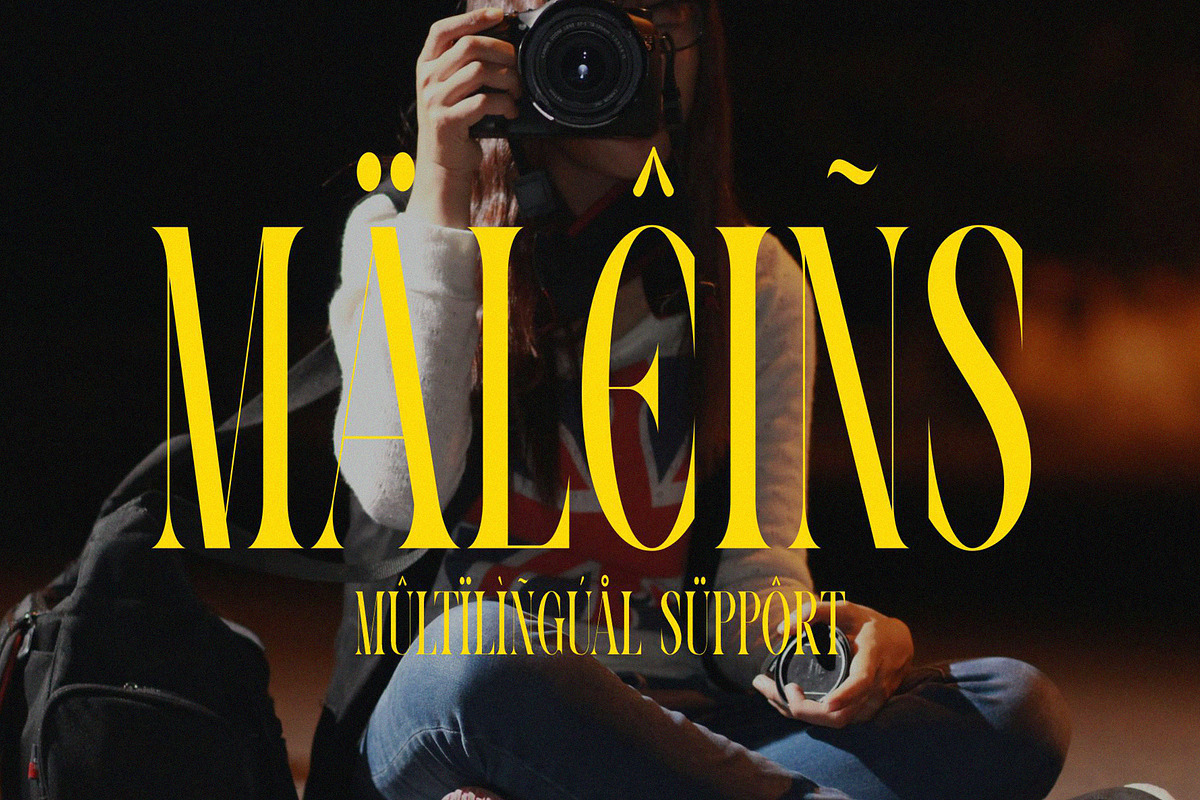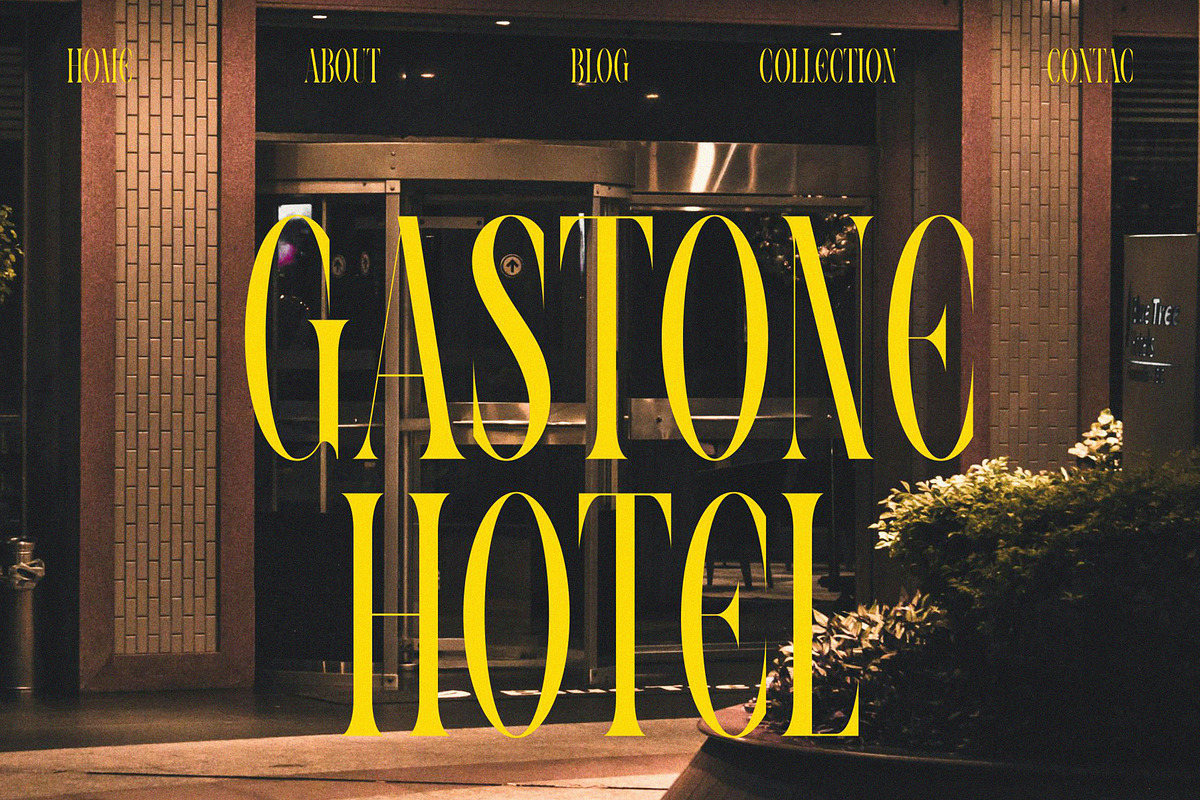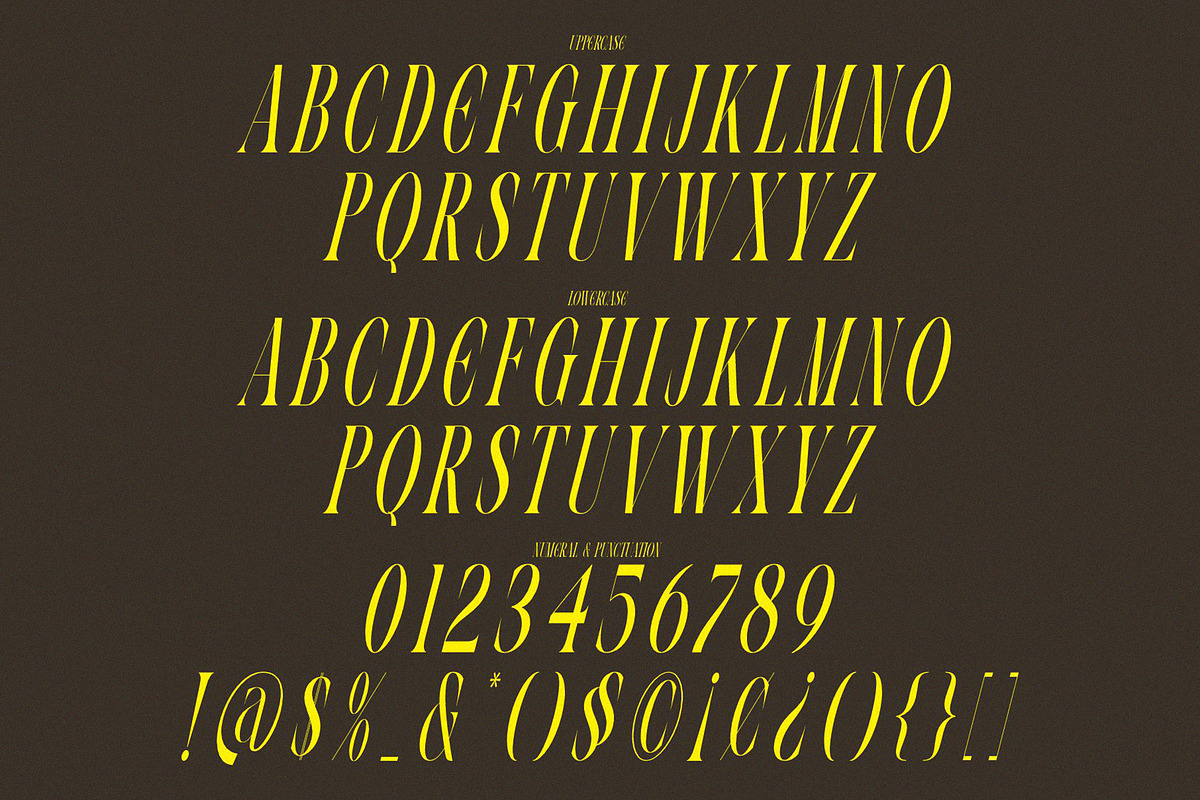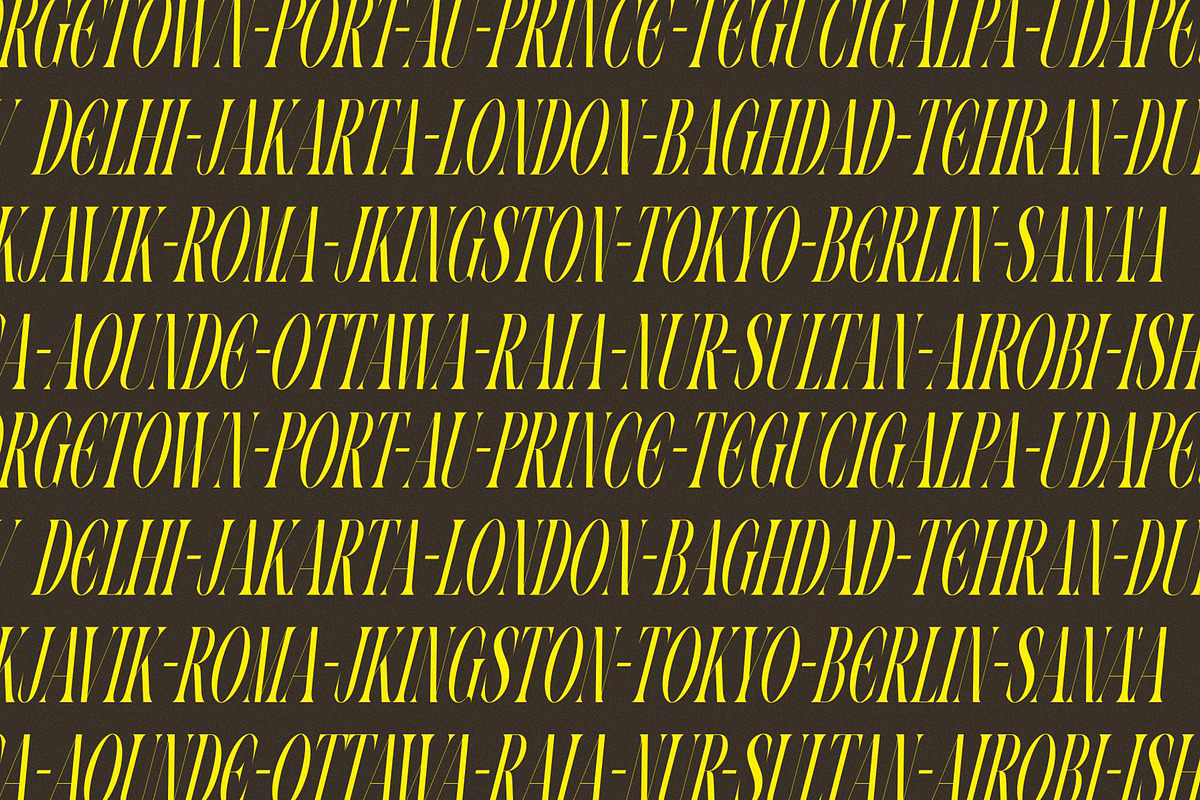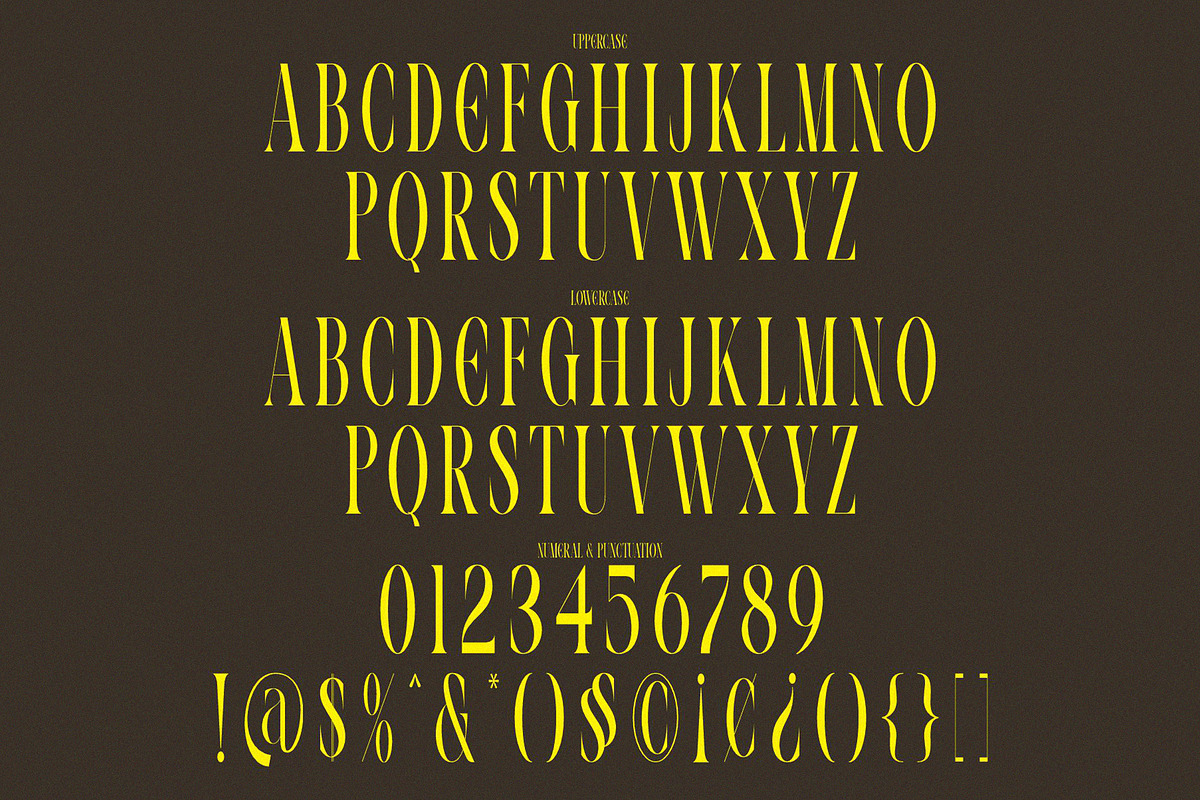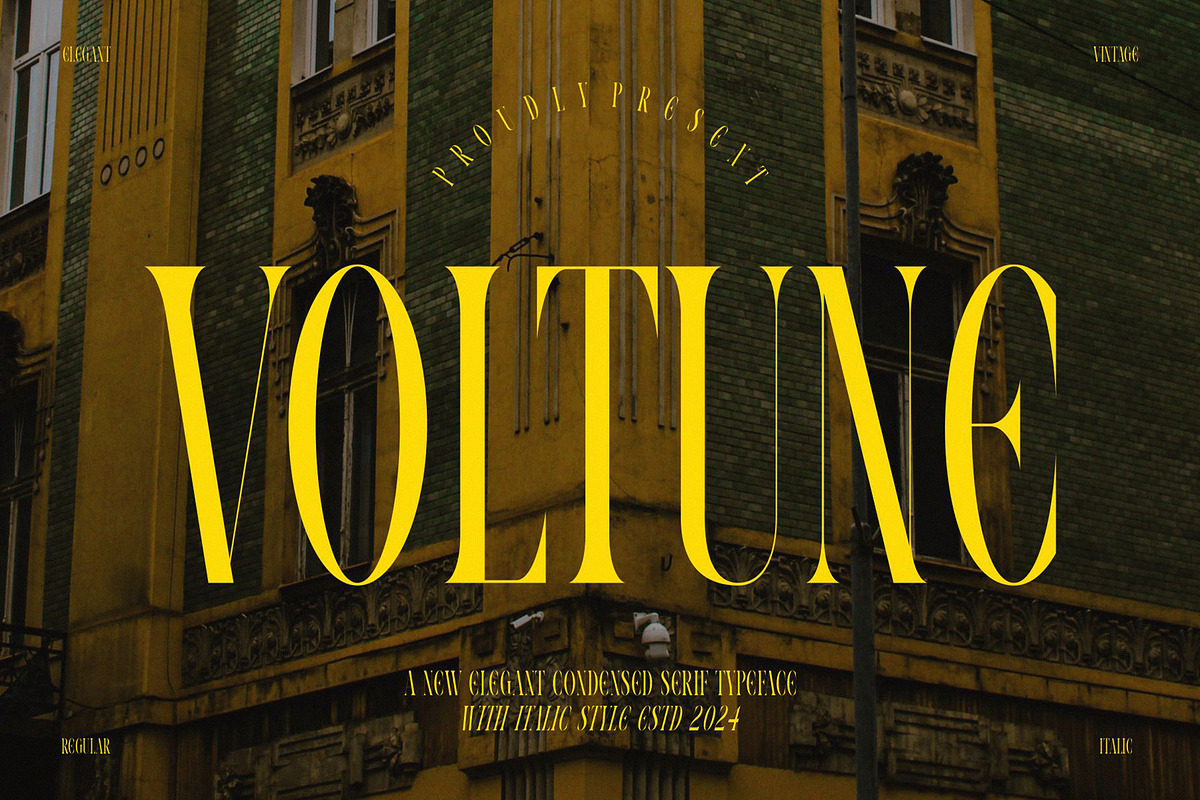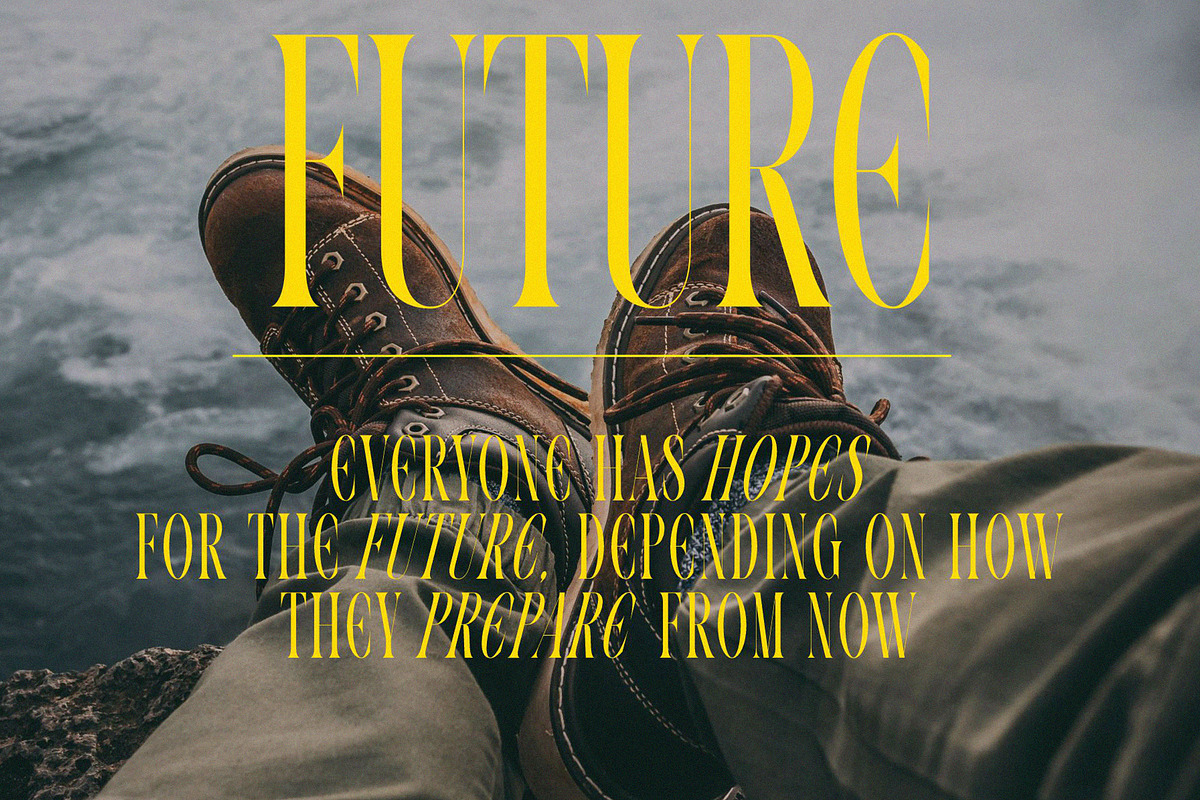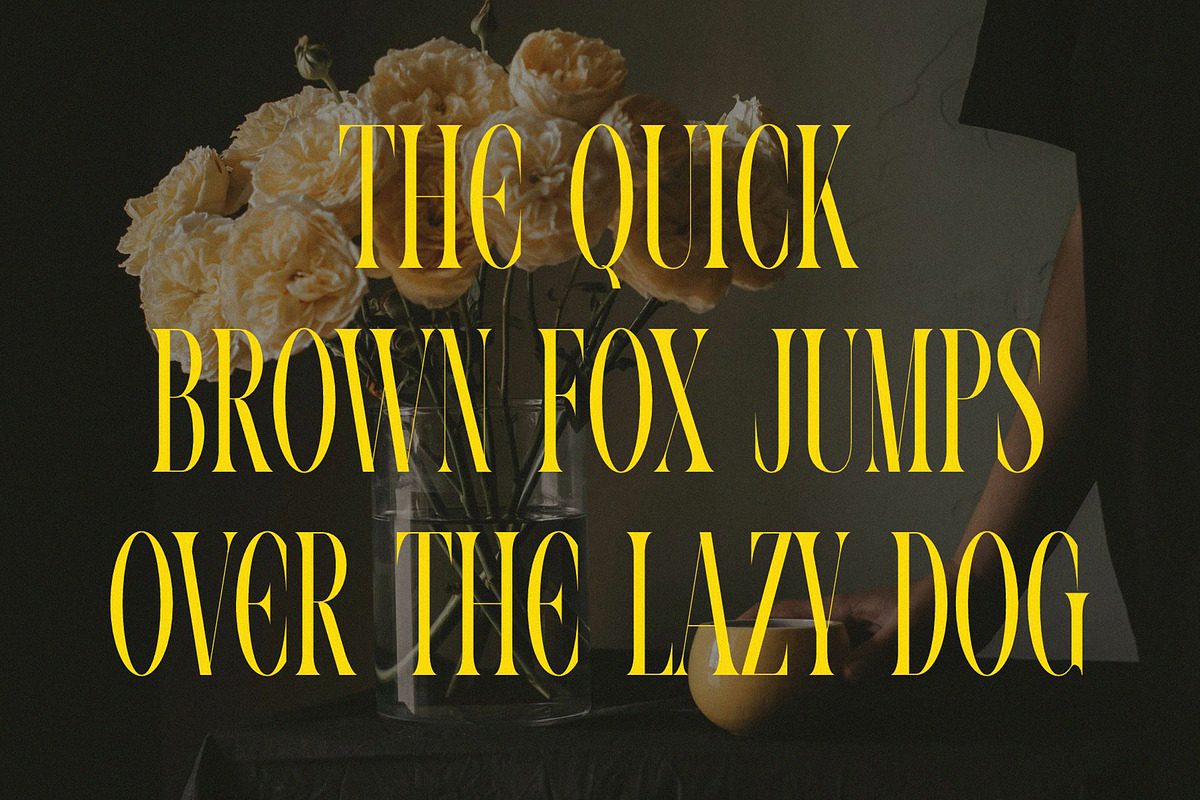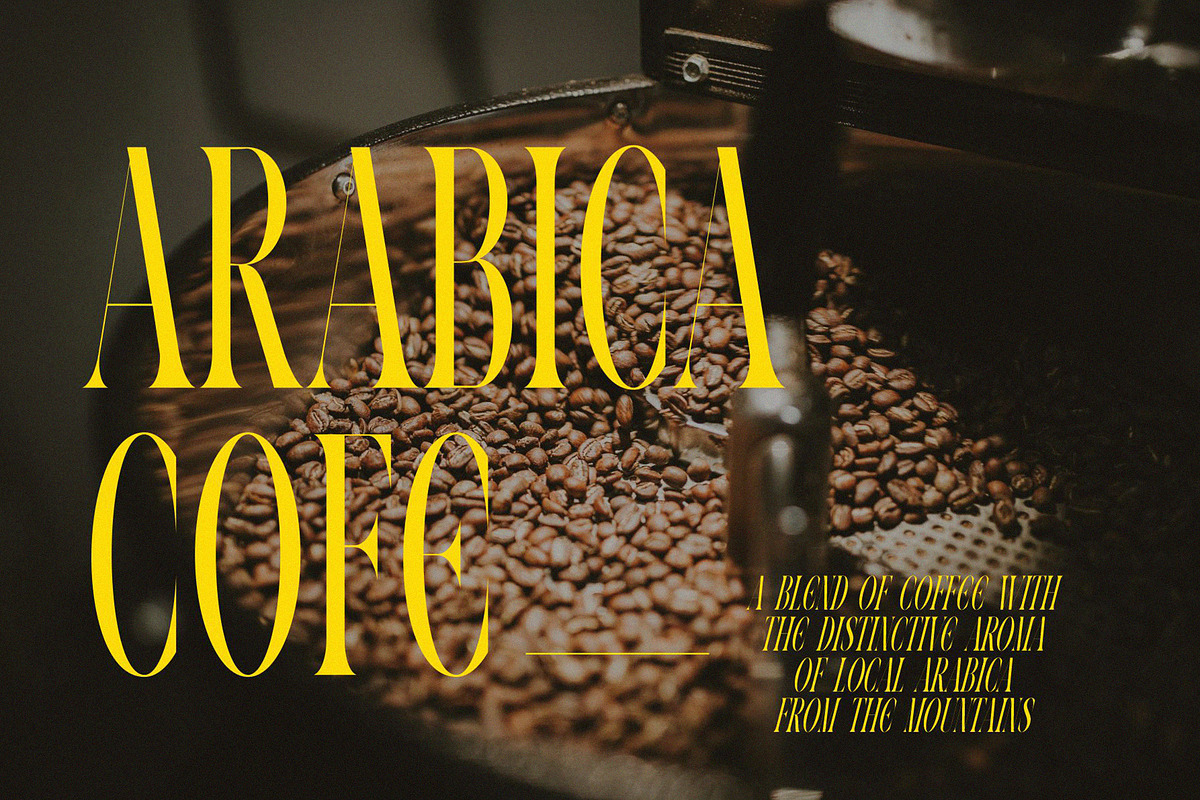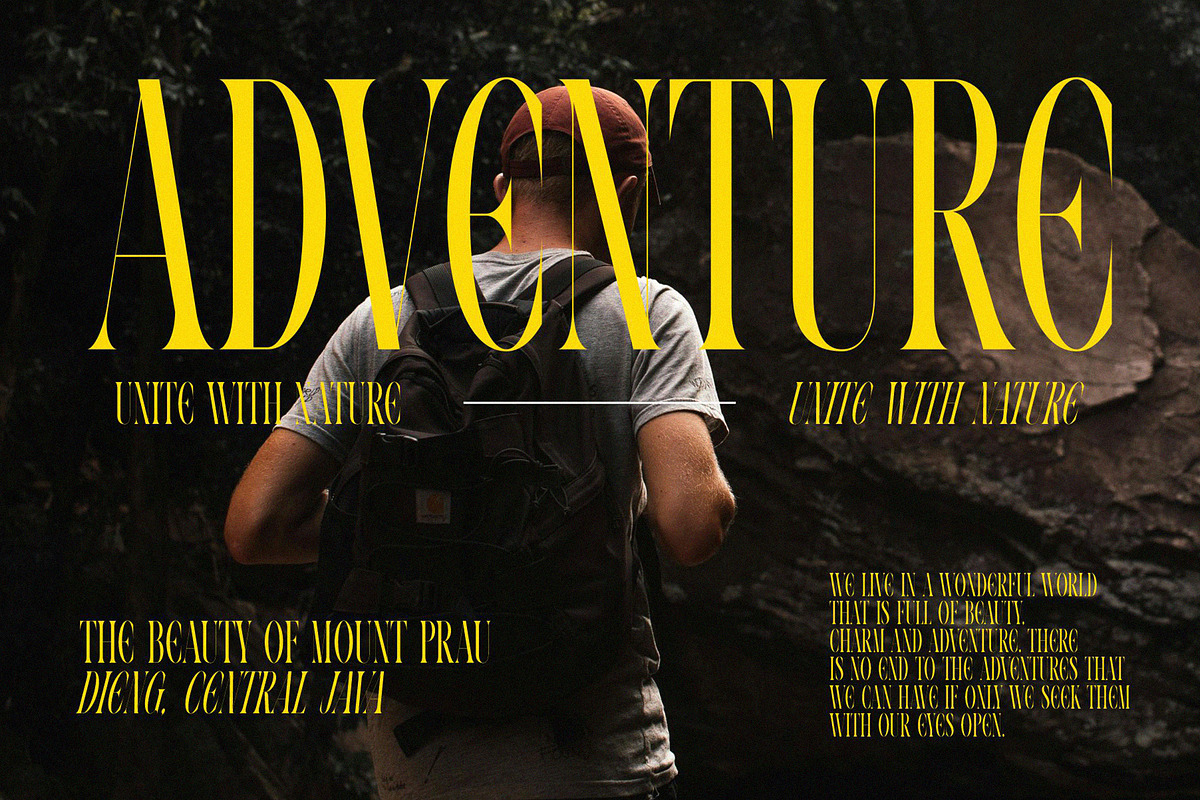
VOLTUNE Elegant Condensed Serif
VOLTUNE Elegant Condensed Serif Typeface inspired by the famous minimalist logo perfect for the purposes of designing templates, brochures, videos, advertising branding, logos, invitation, layout design, elegant crafting, beauty design and other Accessible in the Adobe Illustrator, Adobe Photoshop, Corel Draw. PUA Encoded Characters - Fully accessible without additional design software. Fonts include multilingual support